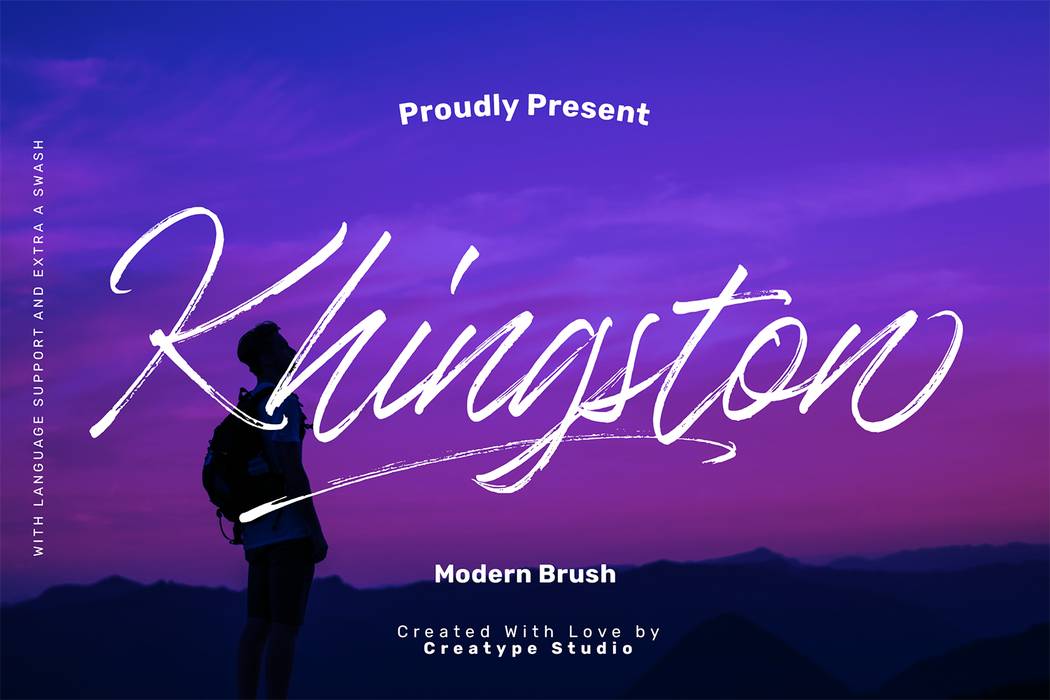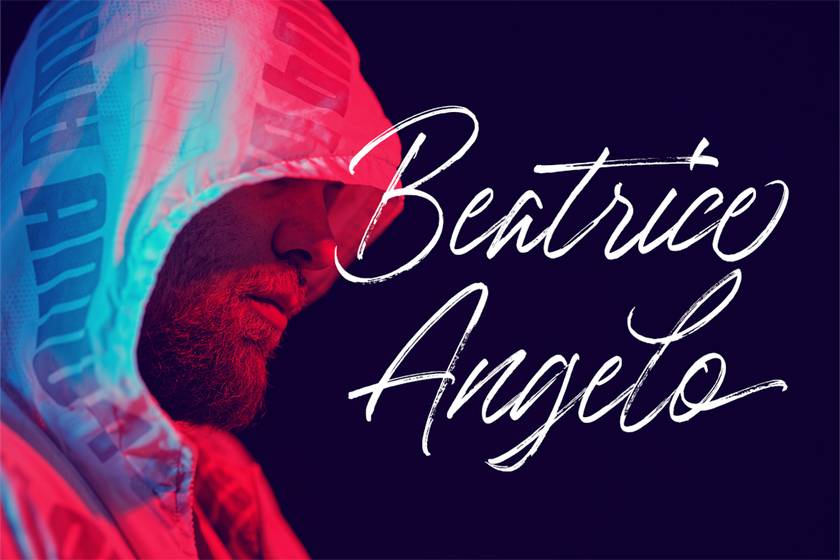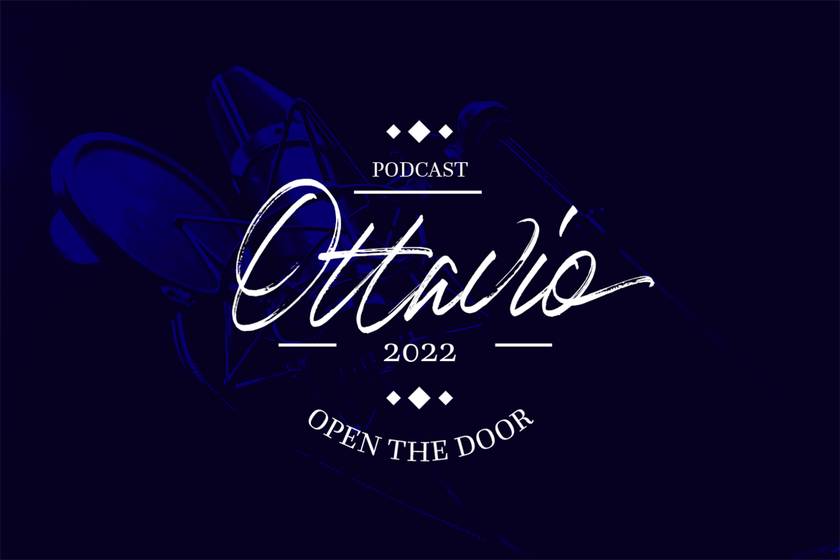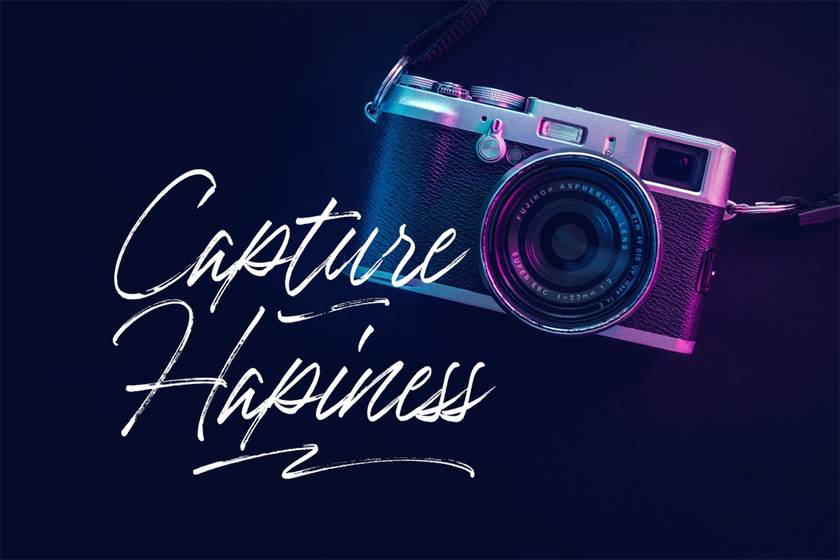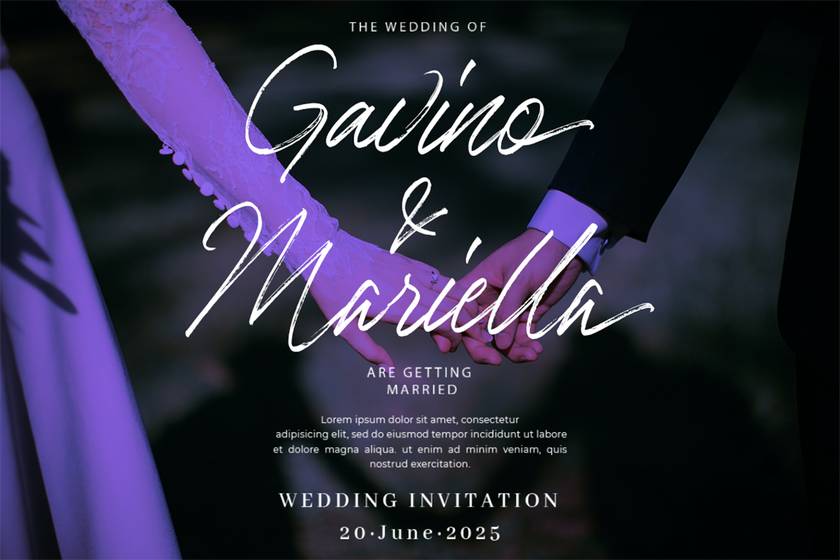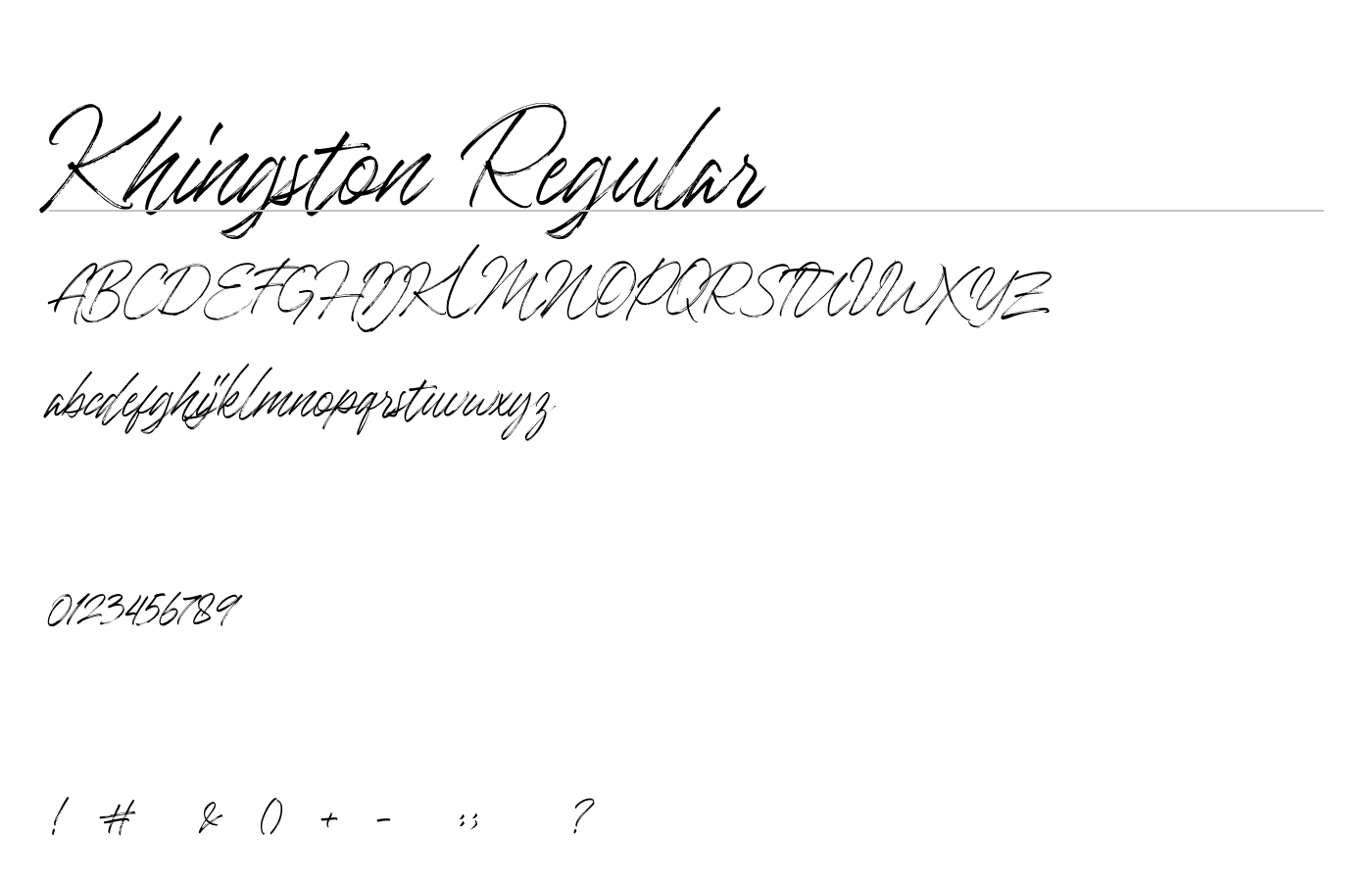
Khingston is a delicate, handwritten script font with a light weight and elegant flow, characterized by smooth, slightly textured strokes that evoke a personal, authentic feel. Its slender, connected letterforms and moderate x-height make it perfect for adding a touch of sophistication and warmth to invitations, branding, and editorial designs seeking a refined, yet approachable style. This font works beautifully where a gentle, stylish, and human touch is desired.
Khingston Font
About Khingston Font
| Font family | Khingston Font |